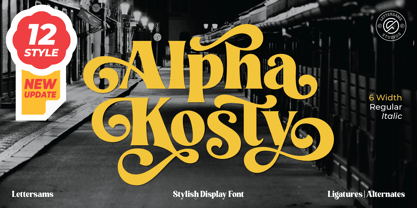
Alpha Kosty
by Lettersams
The Alpha Kosty Font Family was designed by Samsul Kamal and published by Lettersams. Alpha Kosty contains 12 styles and family package options. More about this family
Alpha kosty is a stylish display font, perfect for creating bold and beautiful designs by combining modern style with classic style resulting in a very attractive design to display in a variety of projects, such as posters, magazines, logos, quotes, vintage looks, old classics, posts. social media, web, journals, wedding projects and more. Try to change alternatives, binders and you will get many options for your project which will make it bold, beautiful & attractive. We recommend using Adobe Illustrator or Photoshop.
Alpha Kosty has opentype, kerning, ligature and alternative features that are packaged in 2 style : Regular and Italic. Alpha kosty includes uppercase, lowercase, numbers, punctuation and multilingual support.